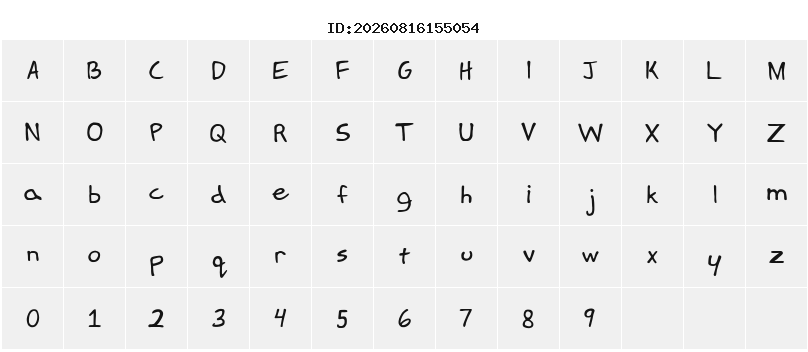
Springfield Cartoon Preview
• Font Name: Springfield Cartoon
• Full Font Name: Springfield Cartoon Regular
• Designer: Darren Turlington
About Springfield Cartoon.ttf
Springfield Cartoon.ttf is a modern, elegant sans-serif font designed for ultimate readability and visual harmony. Perfect for branding, headlines, web design, and print materials.